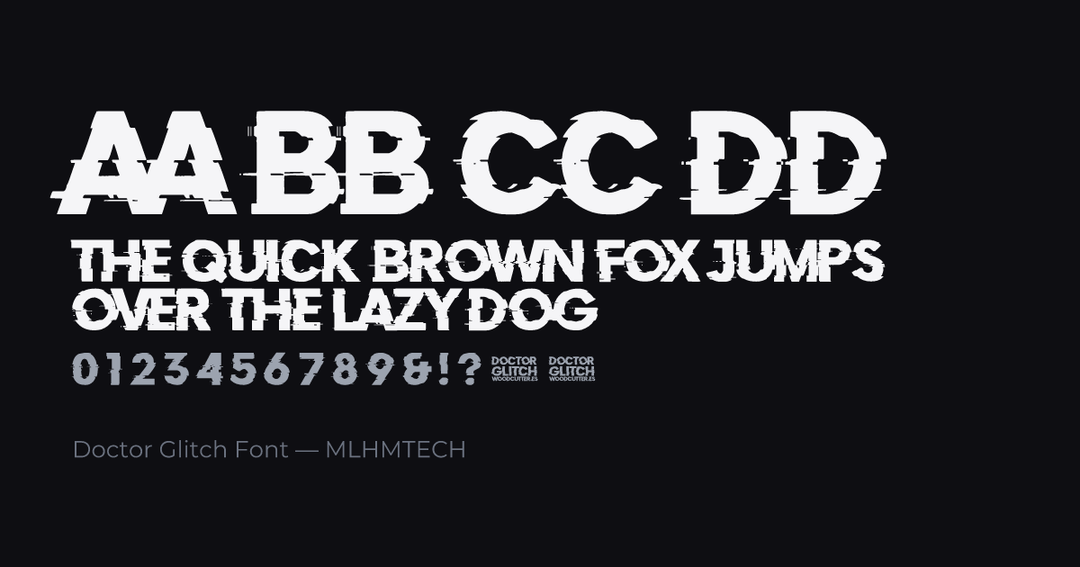
Doctor Glitch Font
Doctor Glitch is a distorted, glitchy font that adds a horror or cyberpunk vibe to any design. Perfect for titles, posters, and social media graphics.
Doctor Glitch is a unique display font featuring distorted letterforms with a glitch effect. Its irregular edges and broken lines give it a raw, edgy look that stands out in horror, sci-fi, or streetwear designs.
This OTF file works with most design software and is ideal for headlines, logos, and promotional materials. The font's irregular baseline may require careful spacing, but it delivers a striking impact when used appropriately.
Add a touch of digital decay to your next project with Doctor Glitch. Whether you're creating a movie poster, a YouTube thumbnail, or a brand identity, this font will make your text look intentionally corrupted and attention-grabbing.